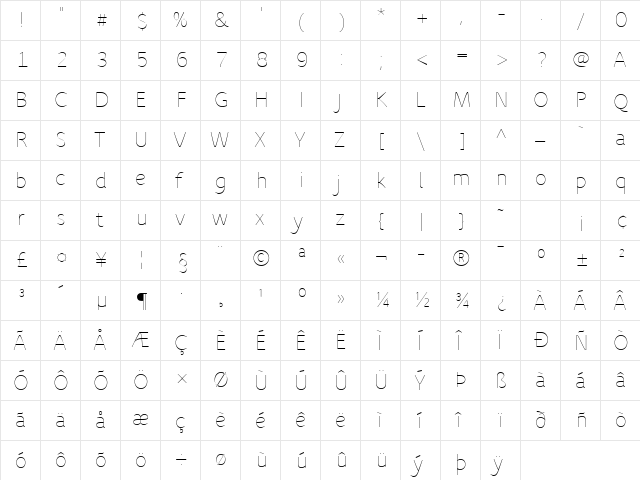
SpeakTF-Light Regular
| Foundry | FSI FontShop International GmbH |
| Designer | Jan Maack |
Design Context for SpeakTF-Light Typeface
SpeakTF-Light offers clean, dependable letterforms without strong stylistic allegiance, making it a practical choice for designers who need flexibility. Its slender proportions lend an understated elegance to any composition.